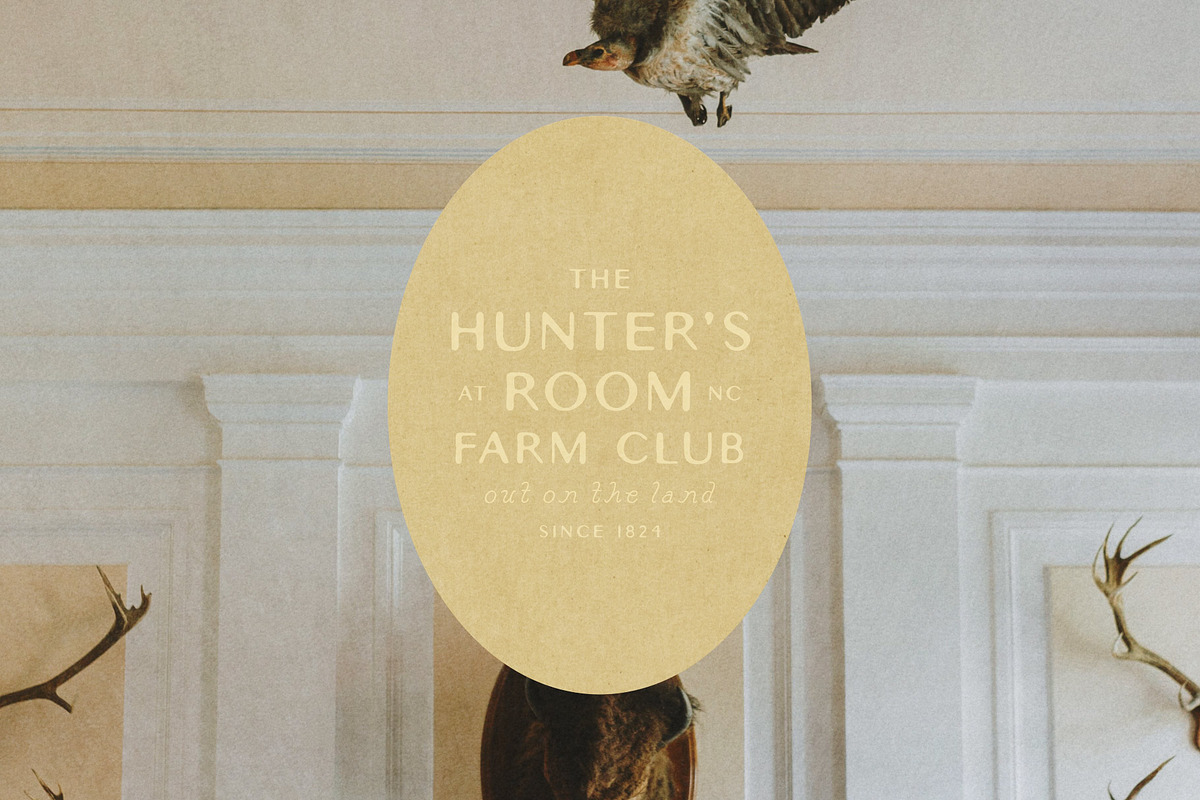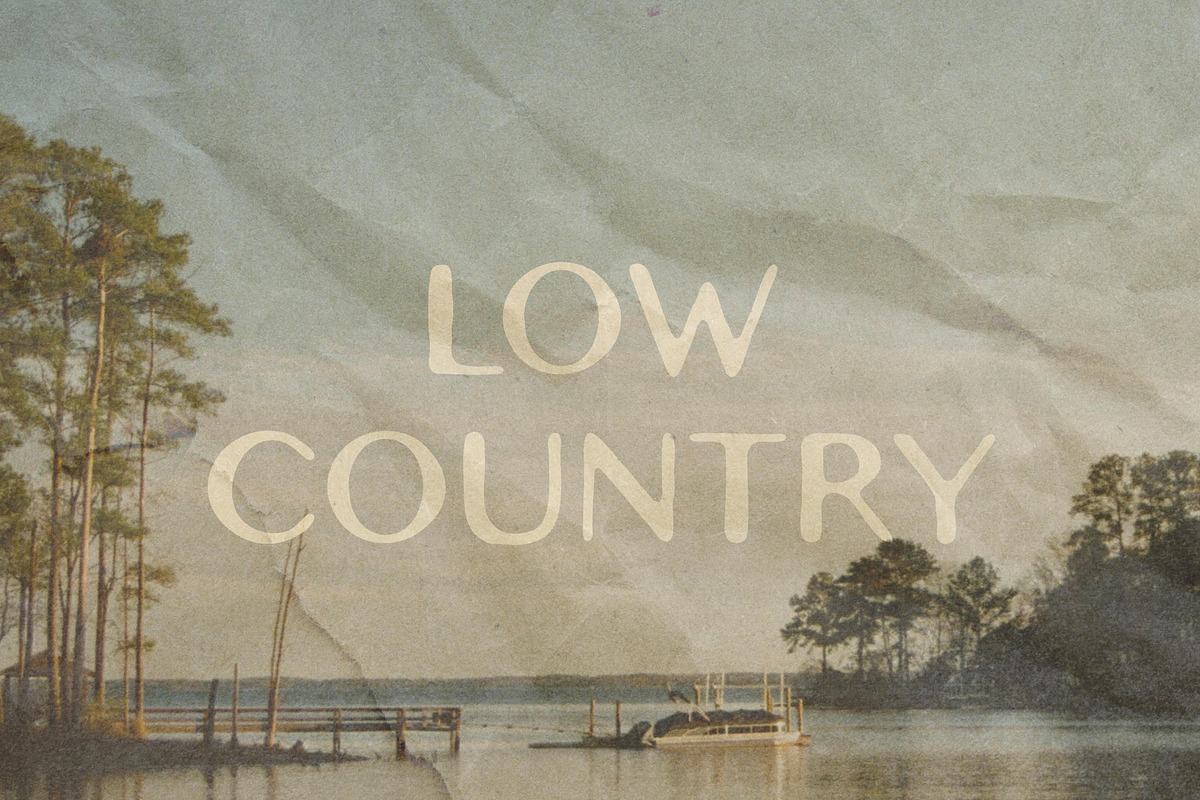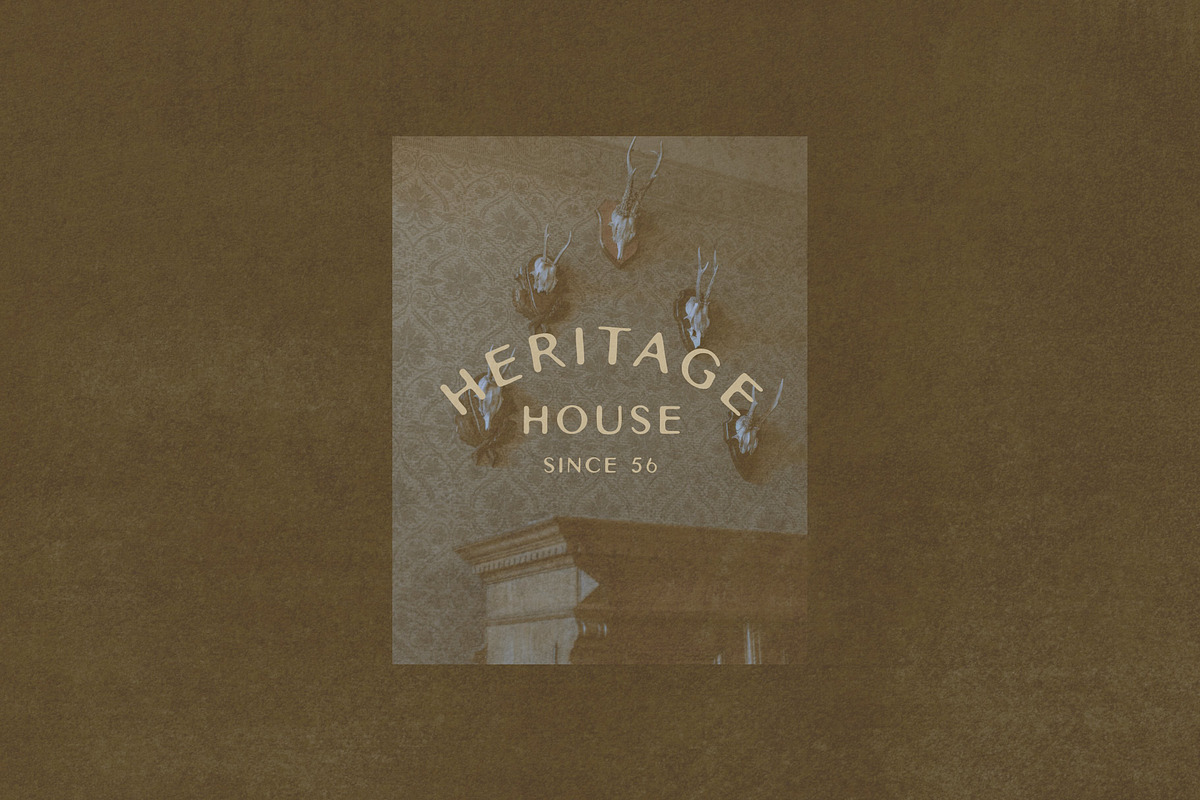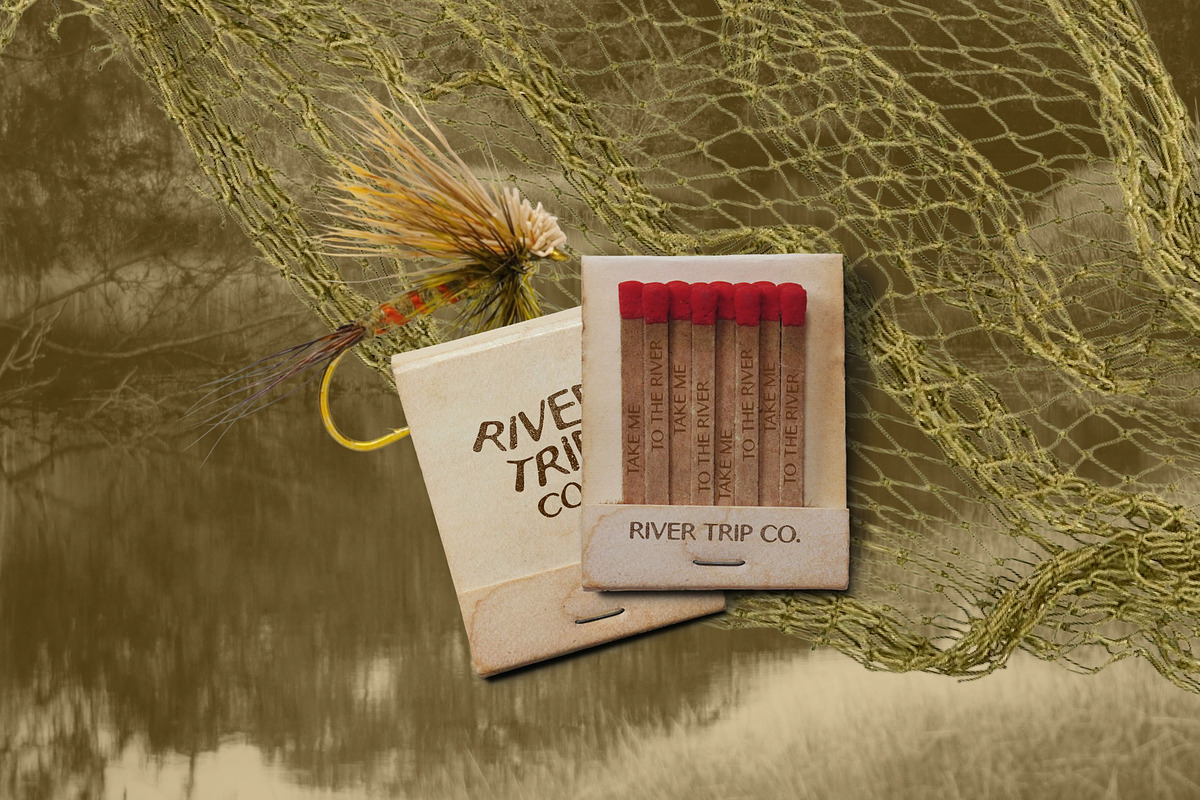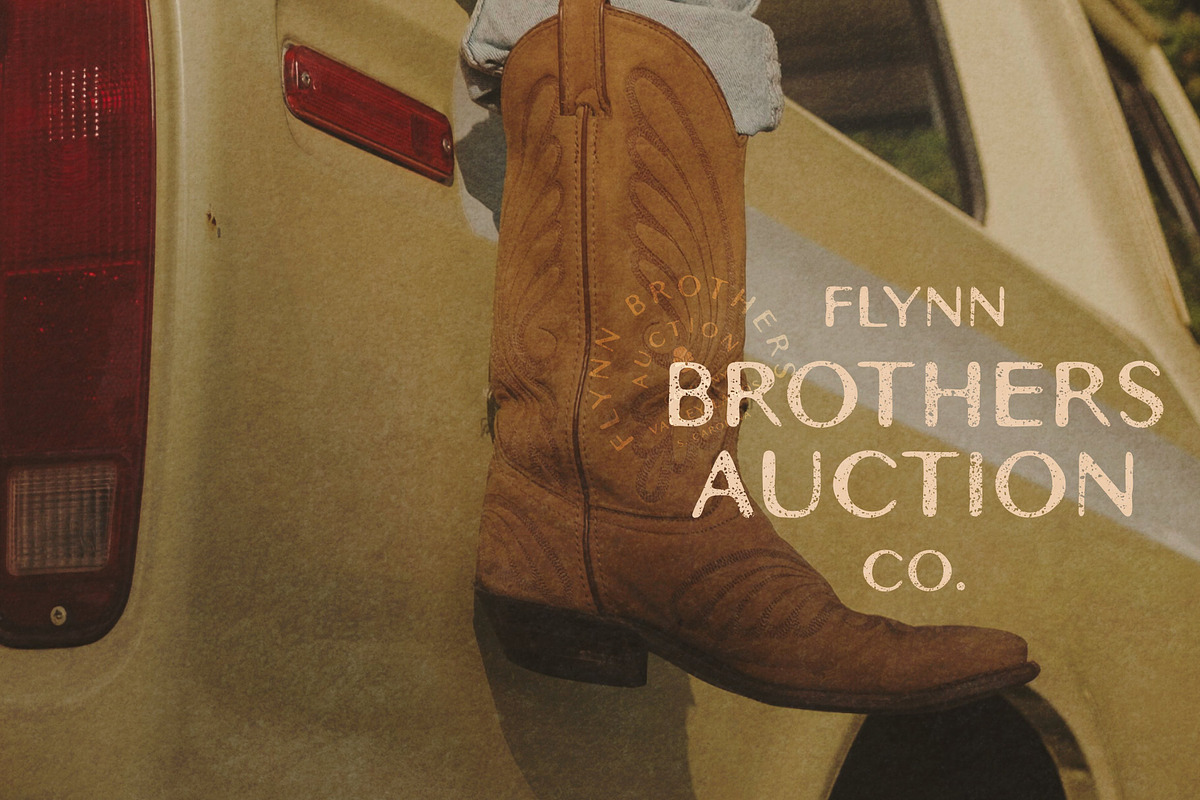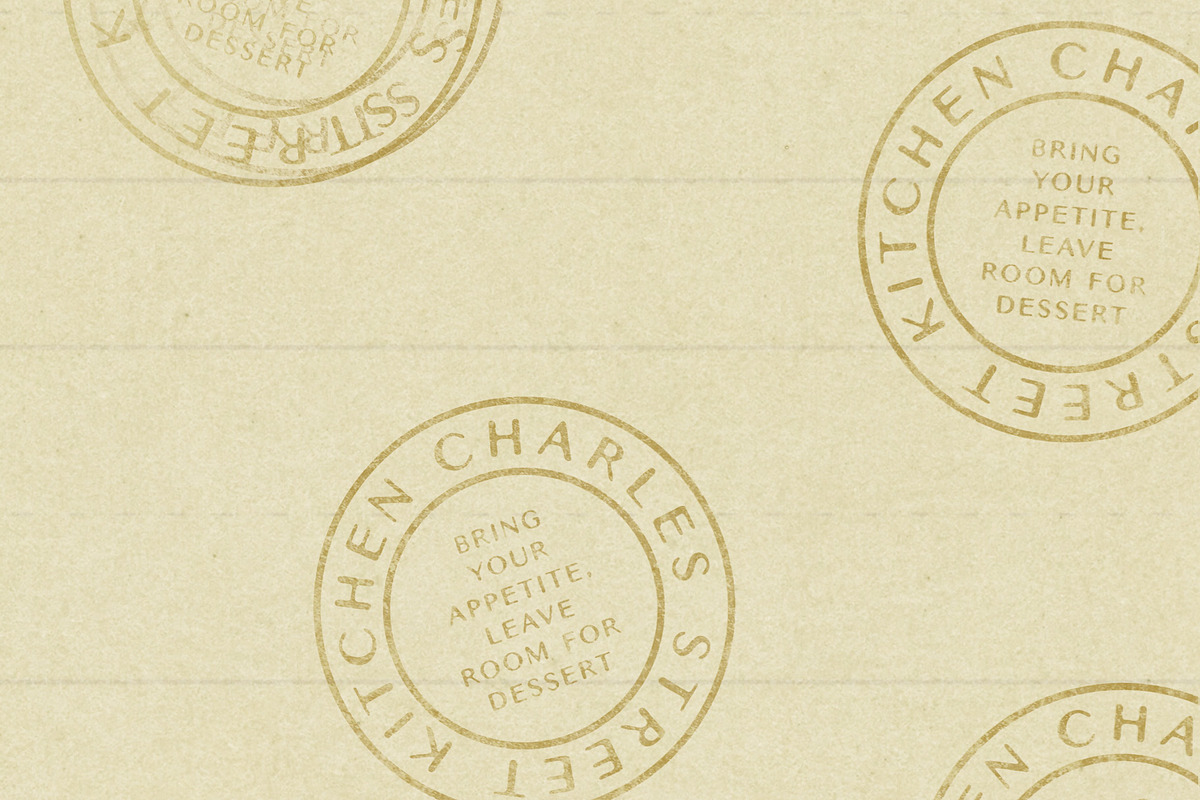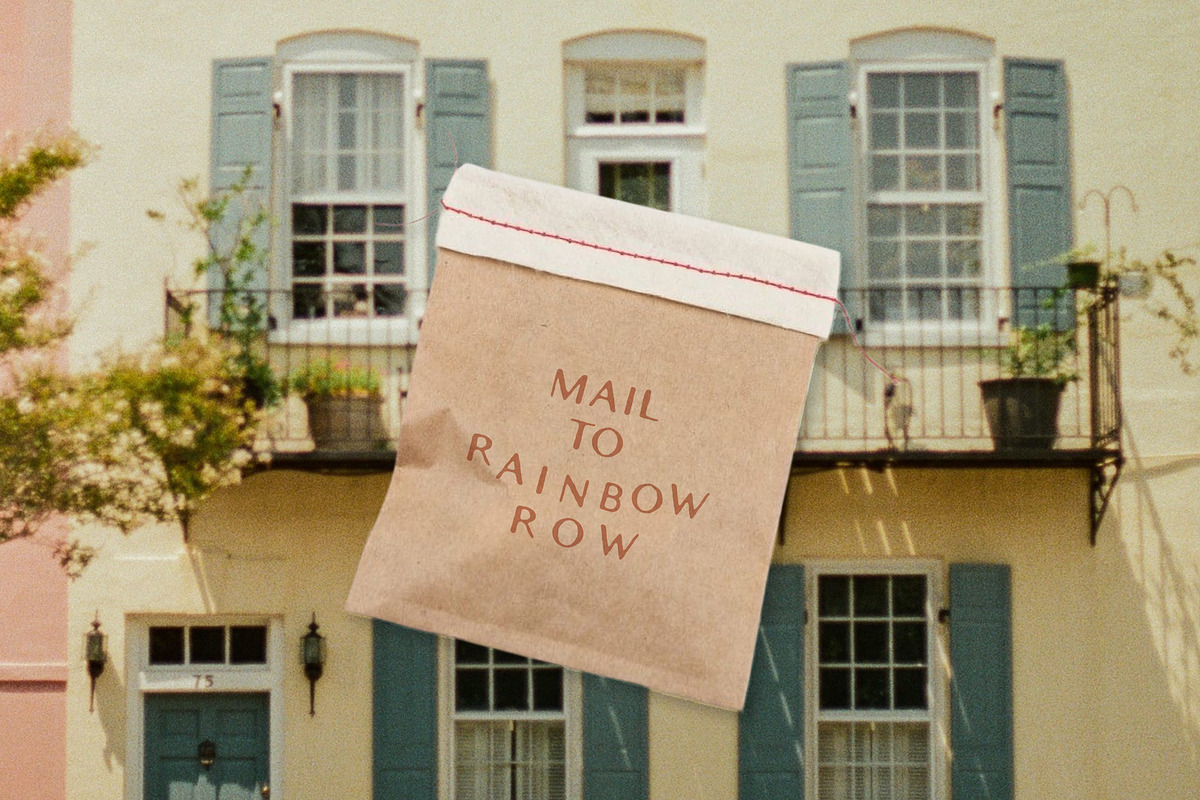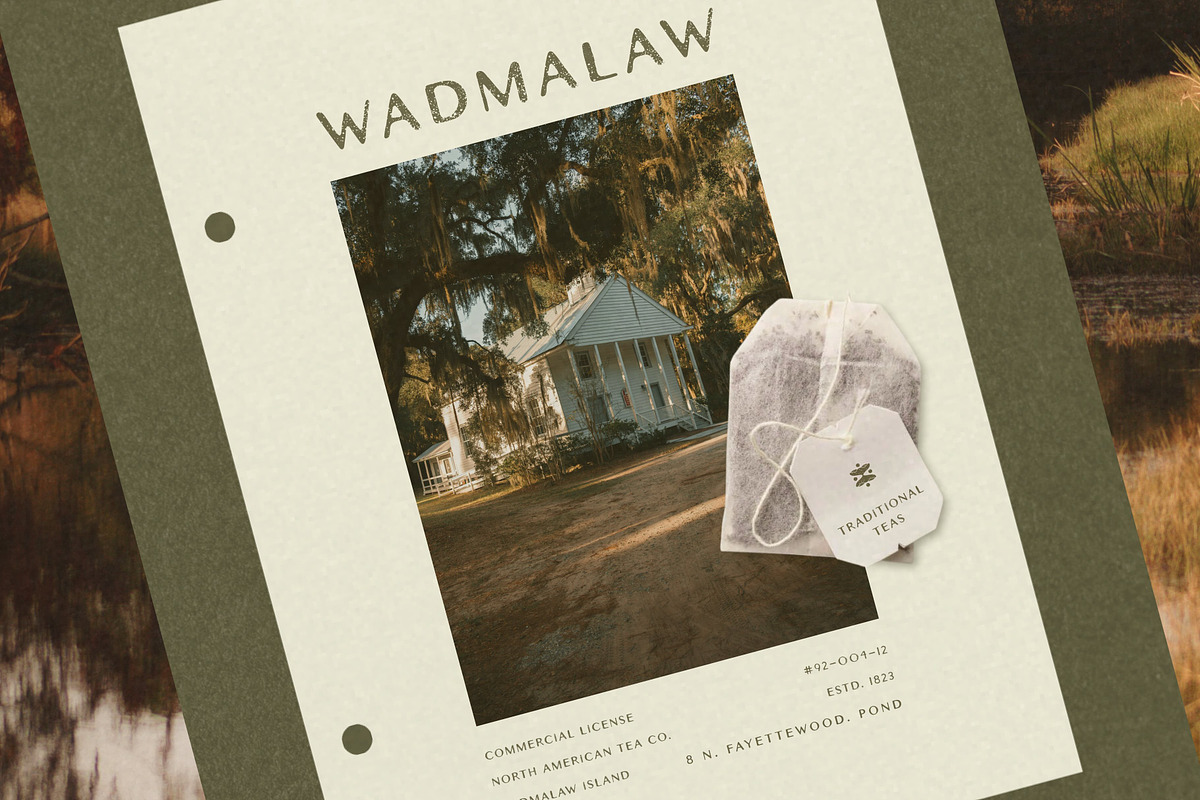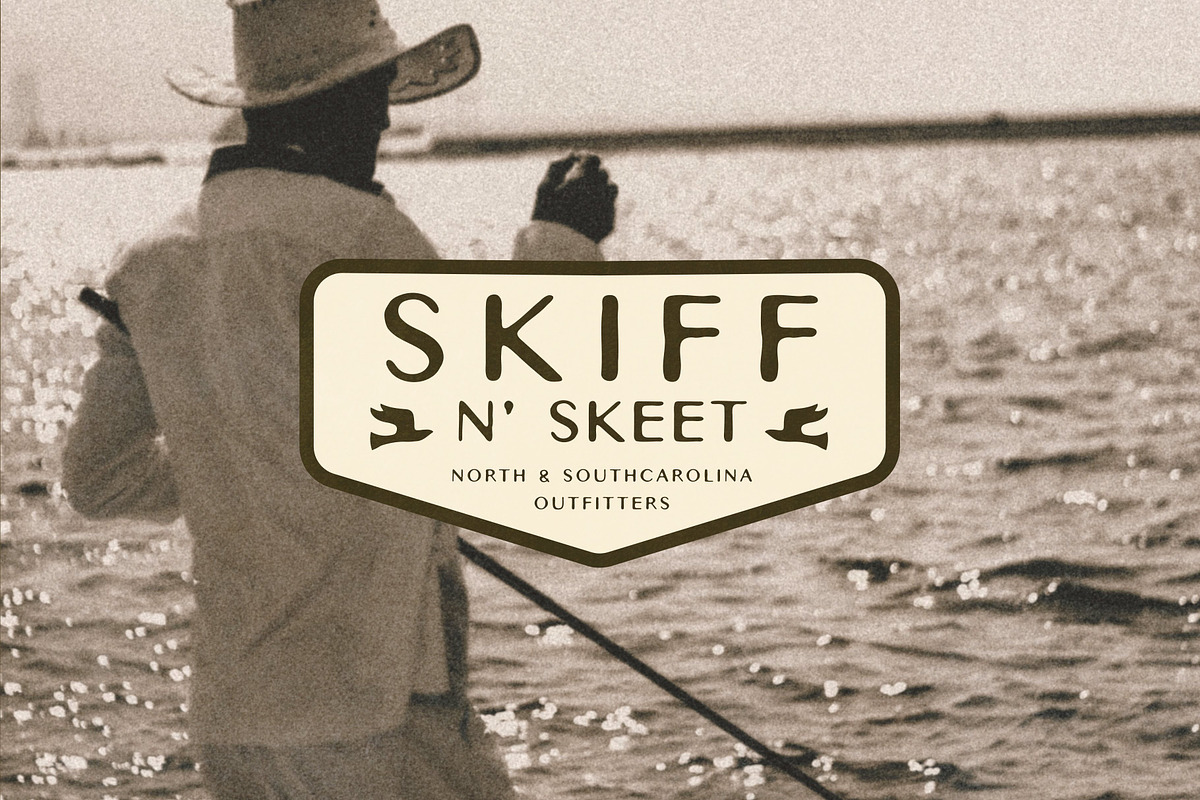
Low Country | Handwritten Sans Serif
Low Country is the first font bundle featuring imperfect sans serif styles inspired by southern spaces that don't rush - marshes, spanish moss, and quiet shifts of the tide. Warm, grounded, unpolished handwritten fonts built from memories made in the quiet landscapes of the Carolinas.
Built from the bones of our New England-inspired font North, and deeply inspired by the slow living of the South. Its subtle irregularities bring an approachable personality to otherwise polished design. Low Country is perfect for fishing, hunting, outdoors, editorial, and timeless branding. Use this custom font in signage, wordmarks, logos, merchandise, digital and print designs.
One font, two styles: The first, duo-style font from By Hand Designs. Low Country is a hand-drawn sans serif workhorse font that features a classic regular style and a distressed variant for a lived in feel.
Low Country Regular is the classic. An adaptable sans serif with enough restraint for paragraphs, menus, packaging, websites, and longer passages, yet enough character to hold a wordmark on its own.
Low Country Distressed reveals its history. The same forms are reworked by hand to introduce irregularity, wear, and a more tactile surface giving headlines, packaging, marks, and display type the feeling of something that existed before you found it.
Packaging: Craft distinctive product packaging with a font made with the irregularity of something made by hand, the restraint of things designed for use, and the slight roughness that comes from a life spent appreciating the outdoors.
Merchandise: use Low Country in merchandise for hotels, outfitters, and businesses trying to capture that increasingly rare feeling of something made by people who still notice things. This typeface carries stories in a way other’s can’t capture.
Social Media: Create engagement-worthy Pinterest and Instagram content with a rustic, masculine, editorial look.
Identity Design: Ideal for everything you can dream up from distilleries who look for character over a polished look, a restaurant whose menu should feel connected to where the food came from, an outdoors brand that values ritual as much as recreation.